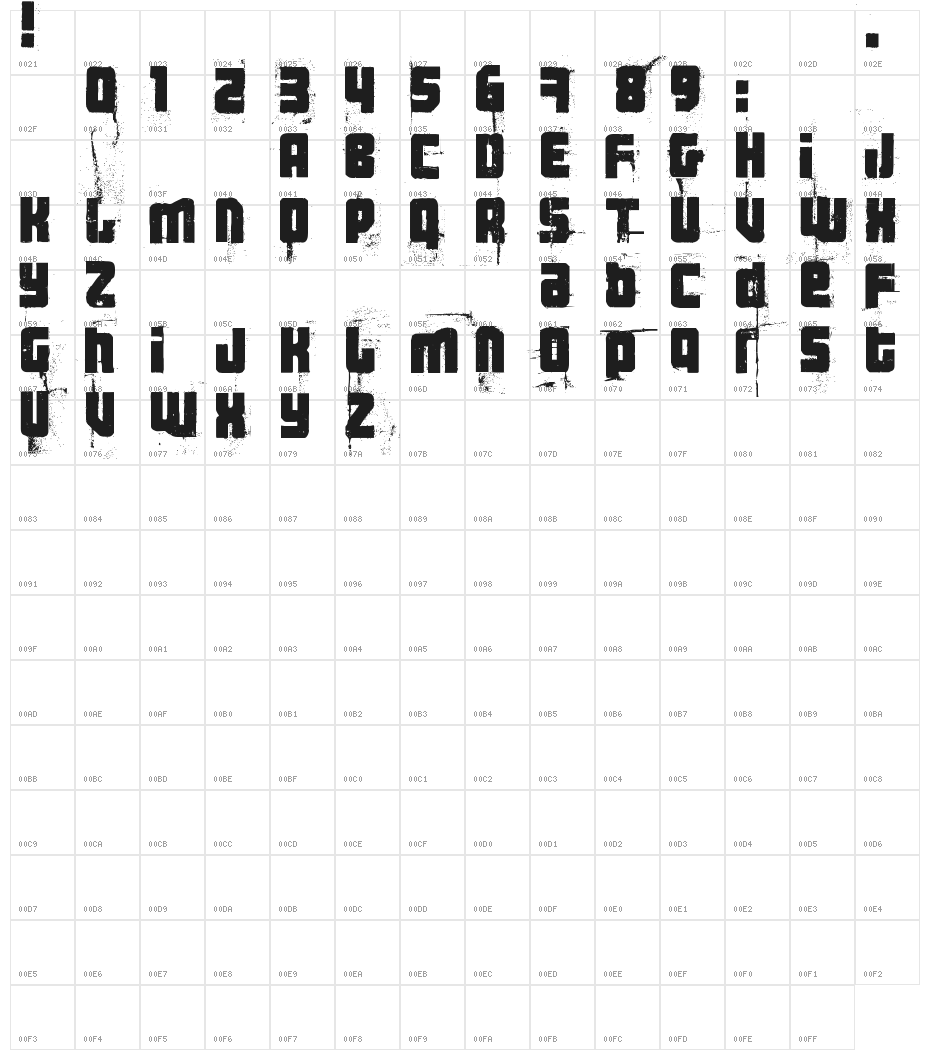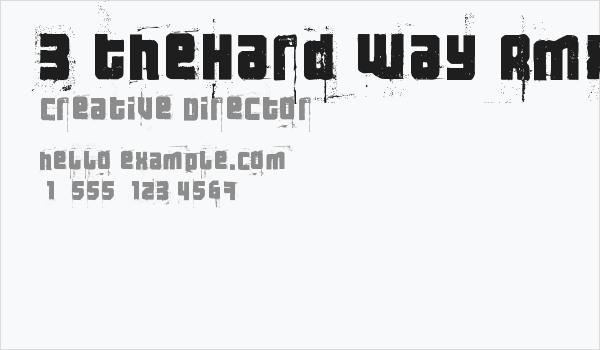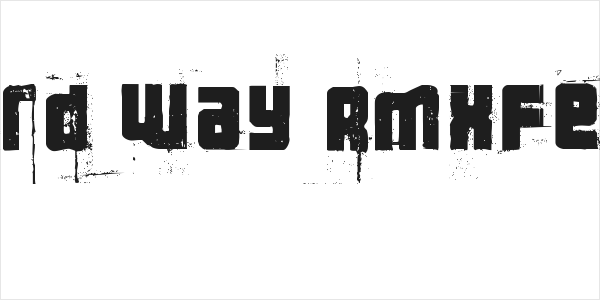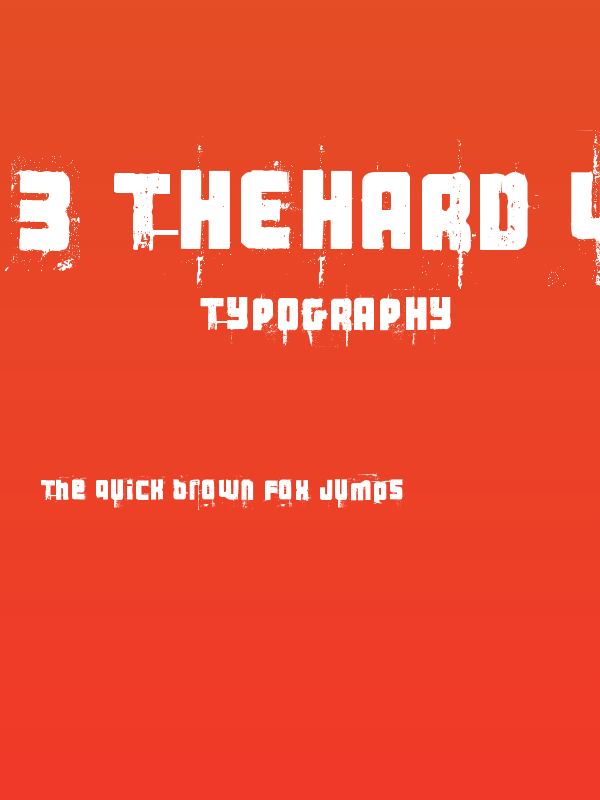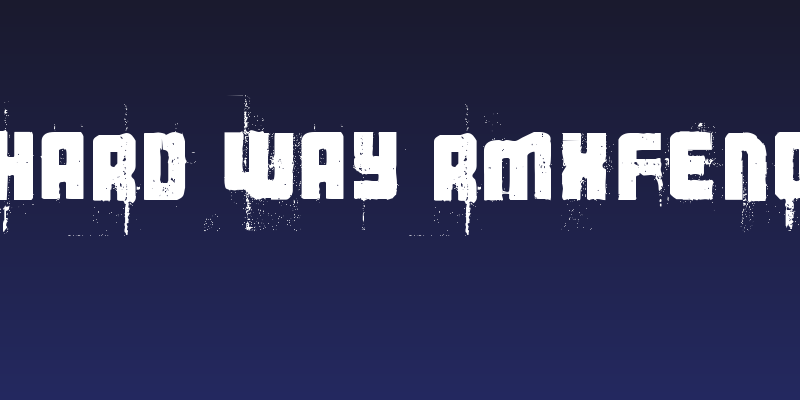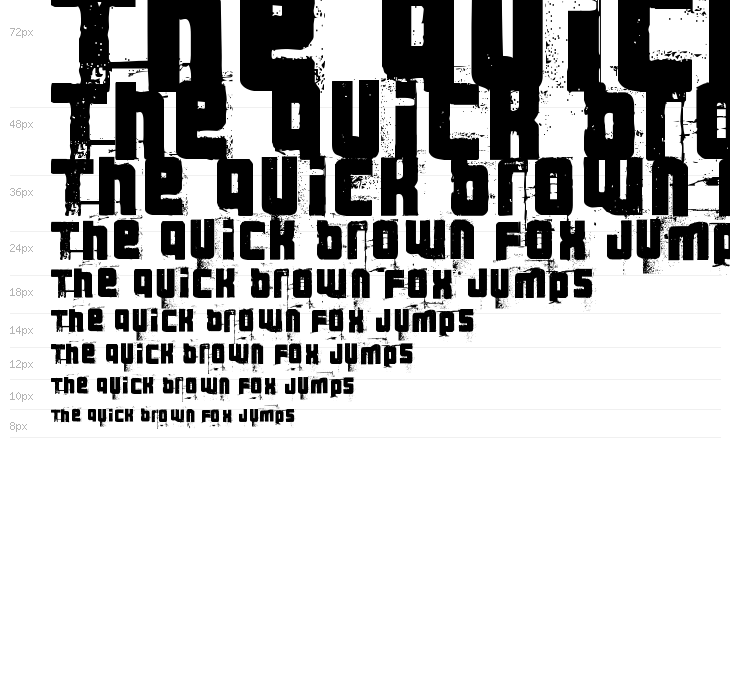
3 theHard way RMXfenotype Font
3 theHard way RMXfenotype Description
This font features a bold, distressed style with a gritty, urban aesthetic. The characters are blocky and robust, with a weathered texture that gives them a worn, industrial feel. The uppercase and lowercase letters maintain a consistent width, creating a uniform appearance. The numbers and special characters follow the same rugged design, making them ideal for projects that require a strong, impactful look. The font's unique texture suggests a sense of age and experience, perfect for designs that aim to convey toughness or resilience.
| Overall Style | Urban, Industrial, Distressed |
| Proposed Projects | Ideal for street art, music album covers, posters, and branding that requires a strong, edgy look. |